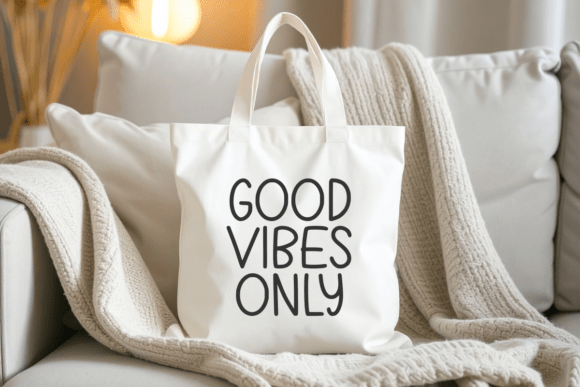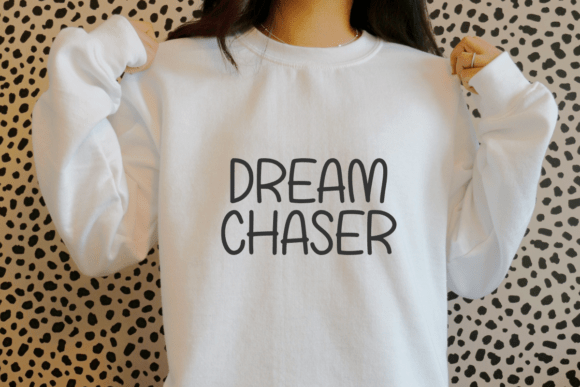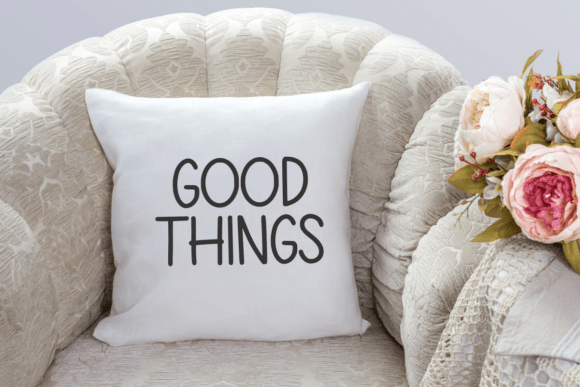
Getting Crafty with Flying Sleigh Font
Have you ever been rummaging through your craft supplies, searching for the perfect font to match your DIY project? Maybe it was a scrapbook page, a set of stickers, or a custom label for a birthday gift. Whatever it was, you probably ended up with a font that just didn’t quite capture the playful, handcrafted feel you were going for.
Enter Flying Sleigh Font, a charming handwriting font that brings a warm, friendly vibe to any project. With its soft, natural look and smooth curves, Flying Sleigh Font is perfect for crafters, designers, and anyone looking to add a personal touch to their work. Whether you’re creating planners, stickers, or kids’ worksheets, this font is sure to bring a smile to your face and a touch of whimsy to your designs.
Flying Sleigh Font Key Features
- Unique Characteristics: The font features a festive and playful design, perfect for creating a magical atmosphere in holiday-themed designs.
- Style Variations: Includes bold, regular, and light styles to cater to different design needs and preferences.
Flying Sleigh Font Review
I recently had the chance to work with the Flying Sleigh Font, and I must say it’s a unique addition to any holiday design project. ✨ The font’s whimsical and playful feel makes it perfect for creating festive and magical vibes.
- ✨ The font’s bold and eye-catching design is sure to grab attention.
- ✨ The variety of font styles within the set makes it versatile and suitable for different design needs.
- ✨ The font’s nostalgic feel is reminiscent of classic holiday decorations and adds a warm, cozy touch to any design.
- ⚠️ The font may be too bold or overwhelming for some design projects, requiring careful balancing with other design elements.
- ⚠️ The font’s lack of subtlety may make it less suitable for more minimalist or modern designs.
Overall, I think the Flying Sleigh Font is a great addition to any designer’s holiday font collection. While it may have some limitations, its unique charm and festive feel make it a standout choice for designers looking to create a magical and memorable holiday experience.
The Flying Sleigh Font is perfect for holiday-themed designs, such as Christmas cards, gift tags, and party invitations.
To get the most out of this font, use it in conjunction with bold, festive colors and playful graphics.
Alternatives to Flying Sleigh Font
Copperplate Script
Copperplate Script is a classic, elegant font perfect for formal invitations, wedding stationery, and other high-end designs. It’s ideal for projects where you want to convey sophistication and refinement.
Compared to Flying Sleigh Font, Copperplate Script is more formal and less playful. While Flying Sleigh Font is great for festive and whimsical designs, Copperplate Script is better suited for more serious and professional applications.
Great Vibes is a beautiful, cursive font that works well for romantic and whimsical designs. It’s perfect for projects where you want to evoke a sense of joy and playfulness.
Compared to Flying Sleigh Font, Great Vibes is more fluid and organic. While Flying Sleigh Font has a more rigid, angular feel, Great Vibes is more free-flowing and expressive.
Carolyna Pro is a elegant, script font that’s perfect for luxury branding, invitations, and other high-end designs. It’s ideal for projects where you want to convey sophistication and glamour.